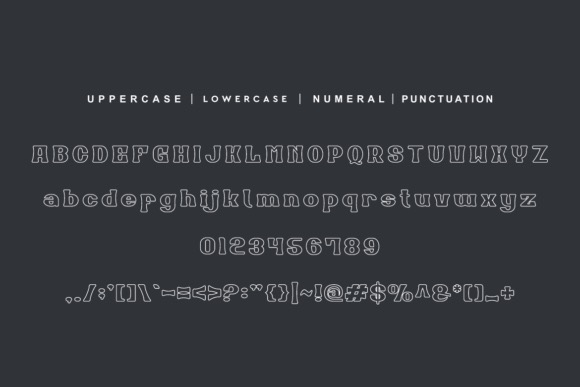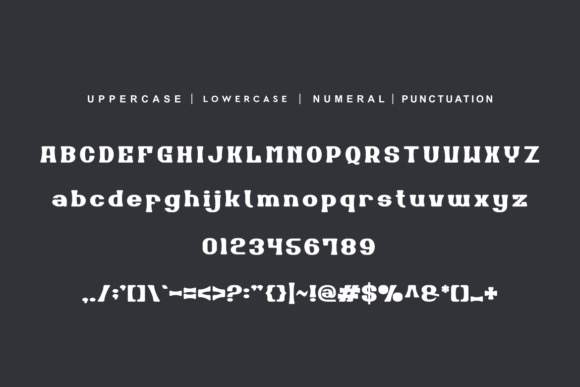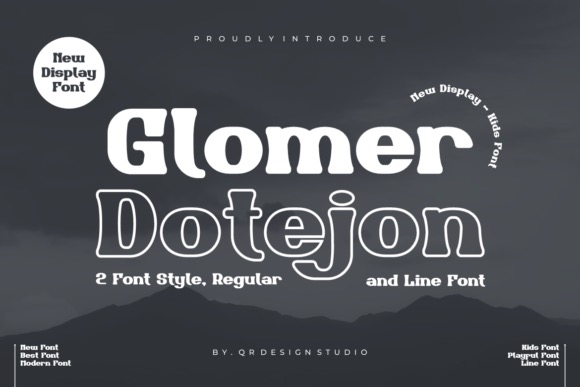
Proudly introducing Glomer Dotejon Font is a bold and assertive serif typeface from Qrdesignstd. No matter the topic, this font will be an incredible asset to your fonts’ library, as it has the potential to elevate any creation.
Glomer Dotejon Display Font